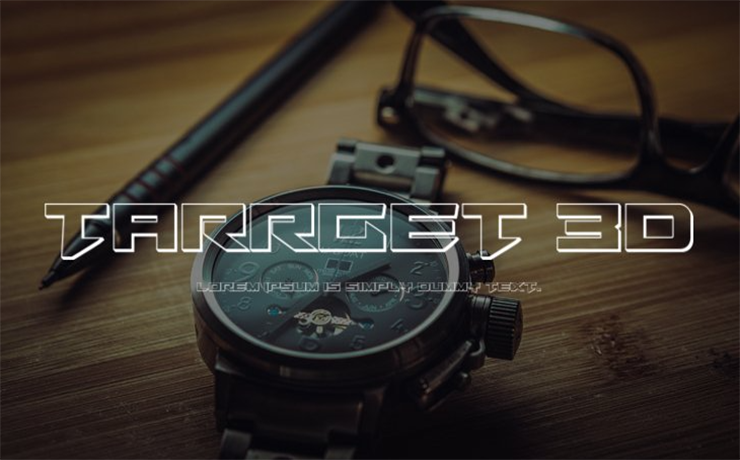
An awesome name for an awesome font, Tarrget Font is a techno sci-fi typeface inspired by fighting video games. That offered unique styles Laser, engrave, and 3D Italic.
This elegant font is perfect for movies, posters, logos, labels, etc. Basically, It has based on the Takken Tag tournament logo. It was a fighting video game that is famous all over the world.
That’s why this beautiful font has sharp corners and a solid shape like a ninja. These shapes are perfect for racing design or fighting project design.
Daniel Zadorozny took the charge of designing it via his type foundry the Iconian Fonts in 2013. Due to its unique and stylish structure, it can be easily adjusted for display tasks in large projects.
You can see that the texture is really thick and does not spread using a long texture.
You can easily use it for movie posters, game titling, game development, book covers, fabric printing, unique emblems, special event cards, signs, titles, technical documents, gaming cards, headers, logos, and many more.
As a sweat pack, this font comes in 25 different variants including Laser, engrave, and 3d Italic. Each and every weight has 217 glyphs along with True Type file format.